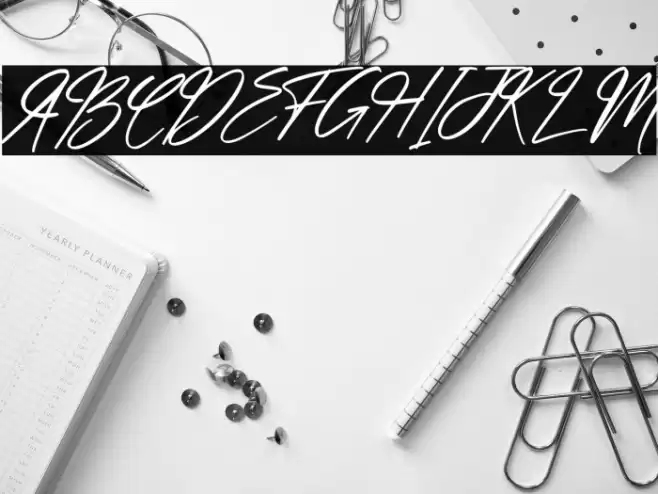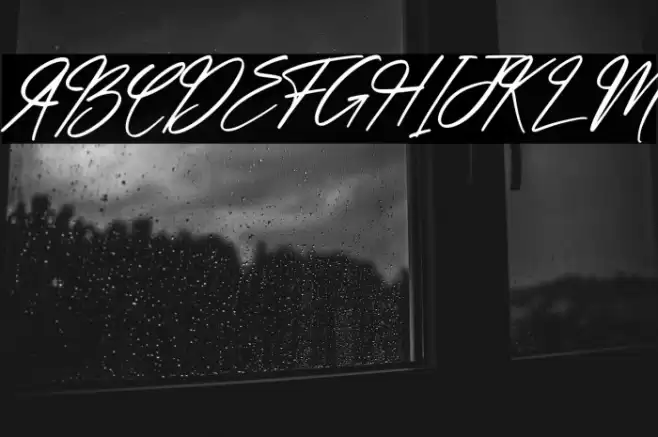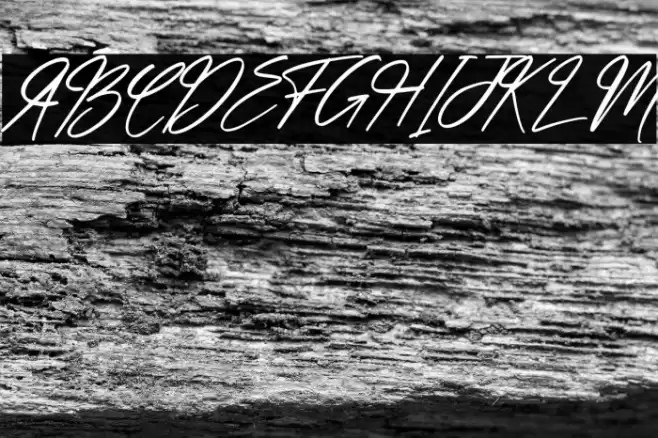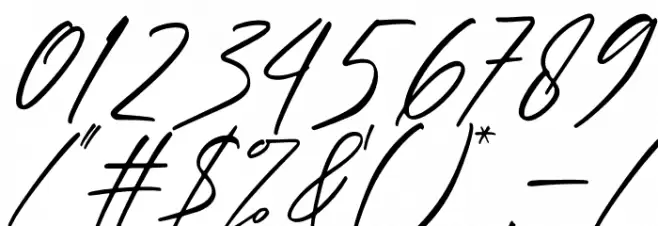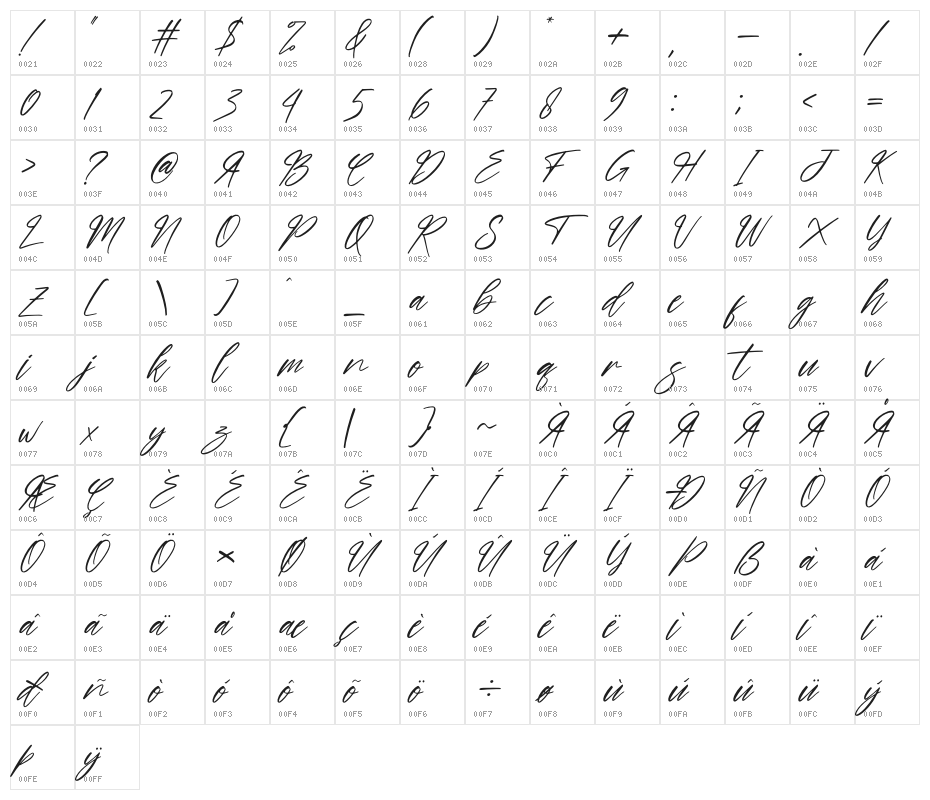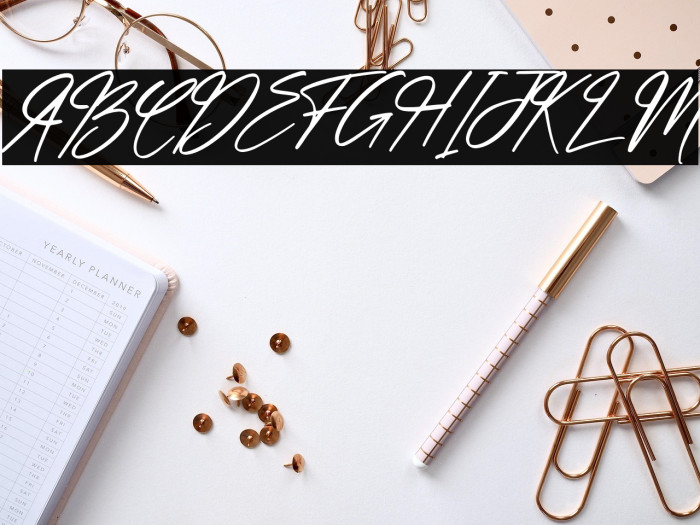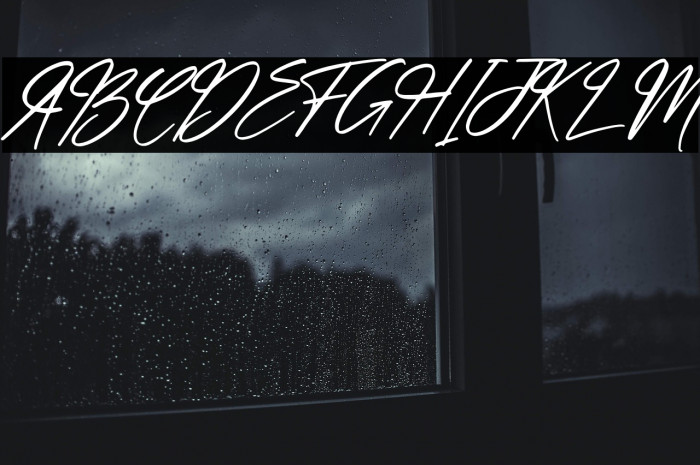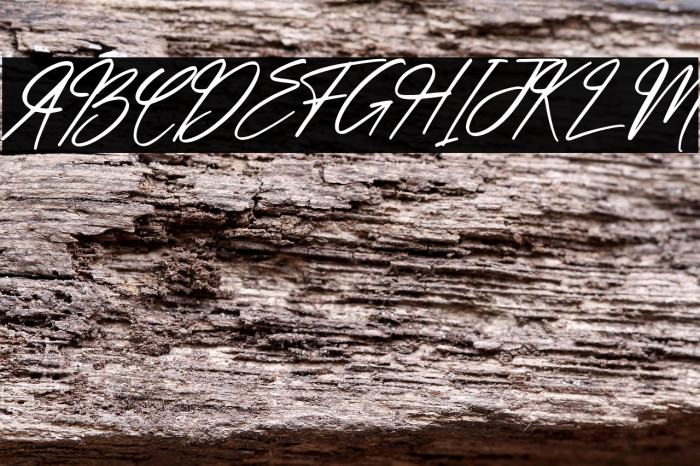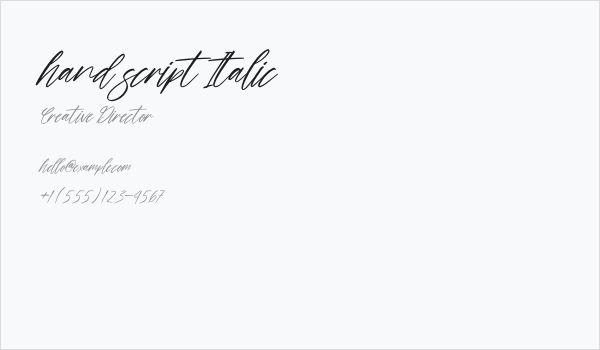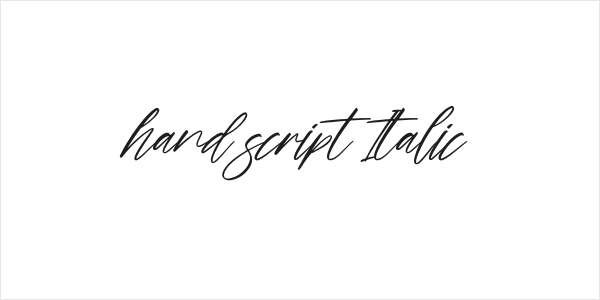
hand script Italic Font
hand script Italic Description
This font features a dynamic and fluid script style, characterized by its elegant and flowing cursive letters. The strokes are smooth and connected, creating a sense of movement and grace. The uppercase letters are bold and slightly slanted, adding a touch of sophistication, while the lowercase letters maintain a consistent rhythm with their rounded forms. The numerals and special characters are designed to complement the overall script style, ensuring a cohesive look. This font is ideal for projects that require a personal and artistic touch, such as invitations, greeting cards, and branding materials.
A fluid and elegant script font with smooth, connected strokes from Uncategorized fonts.
- Font: hand script Italic
- Proposed Projects: Ideal for invitations, greeting cards, branding, and artistic projects.
- Character Spacing: Tight
- Overall Style: Elegant, Artistic
- Use Case: Headlines, Logos, Decorative text